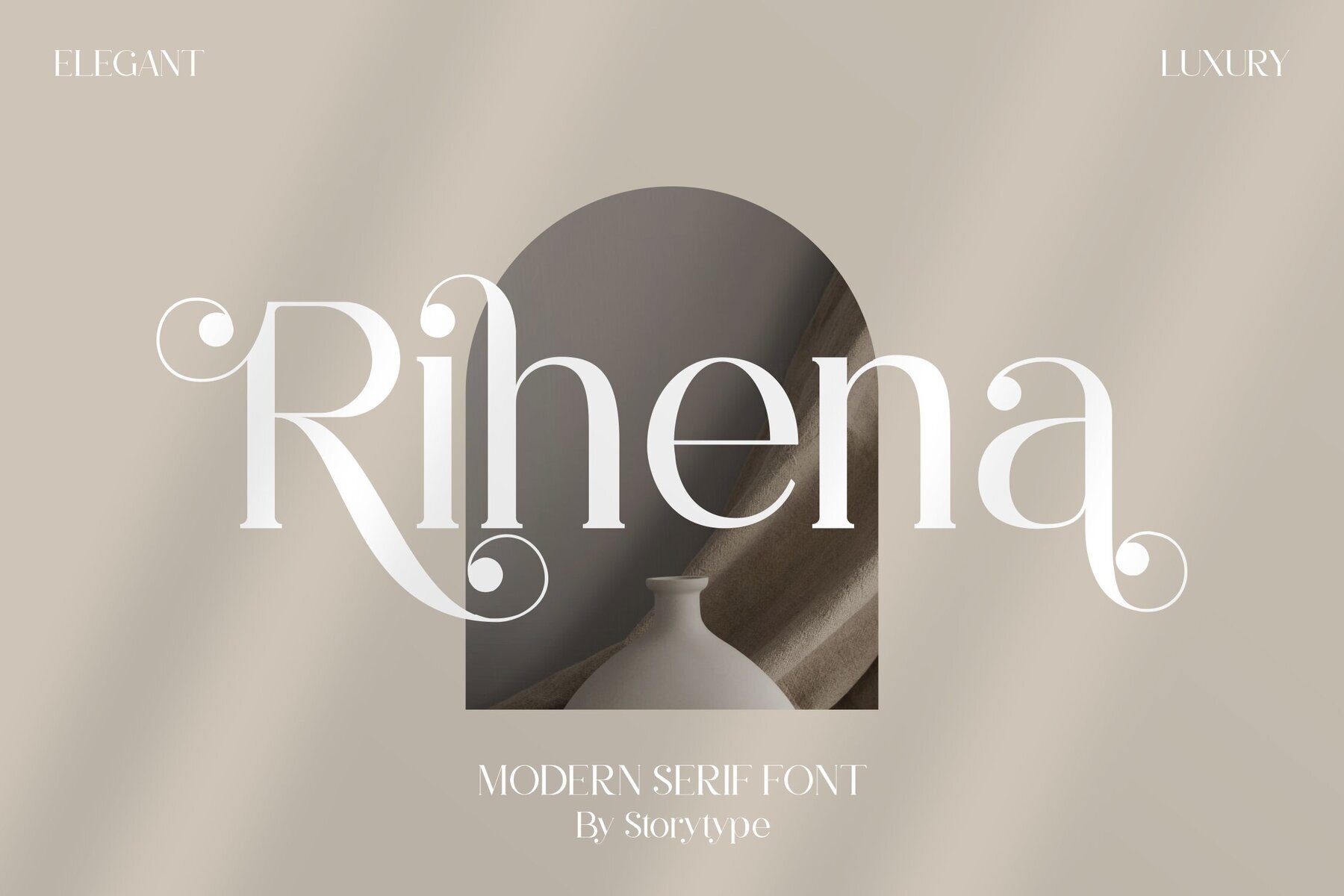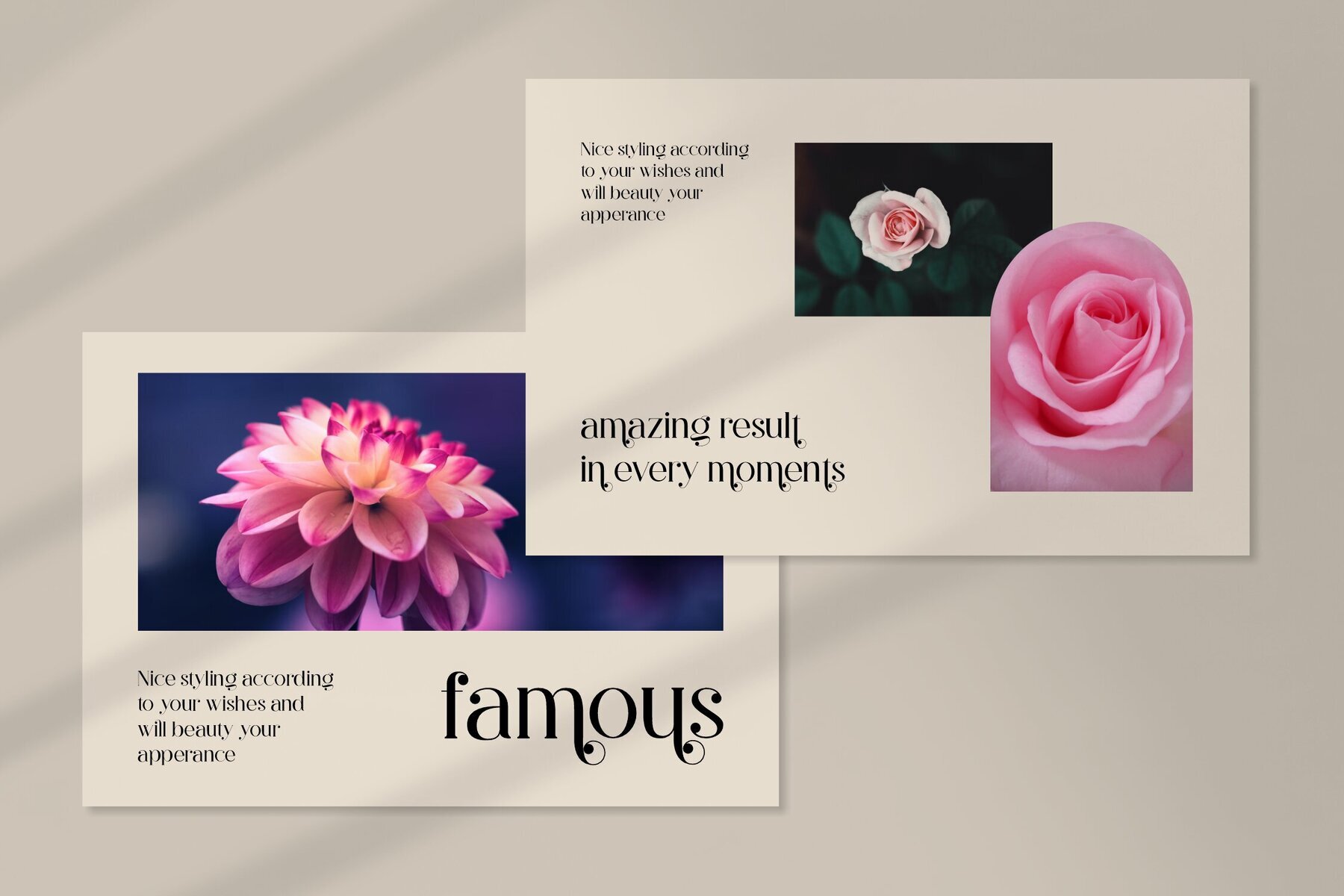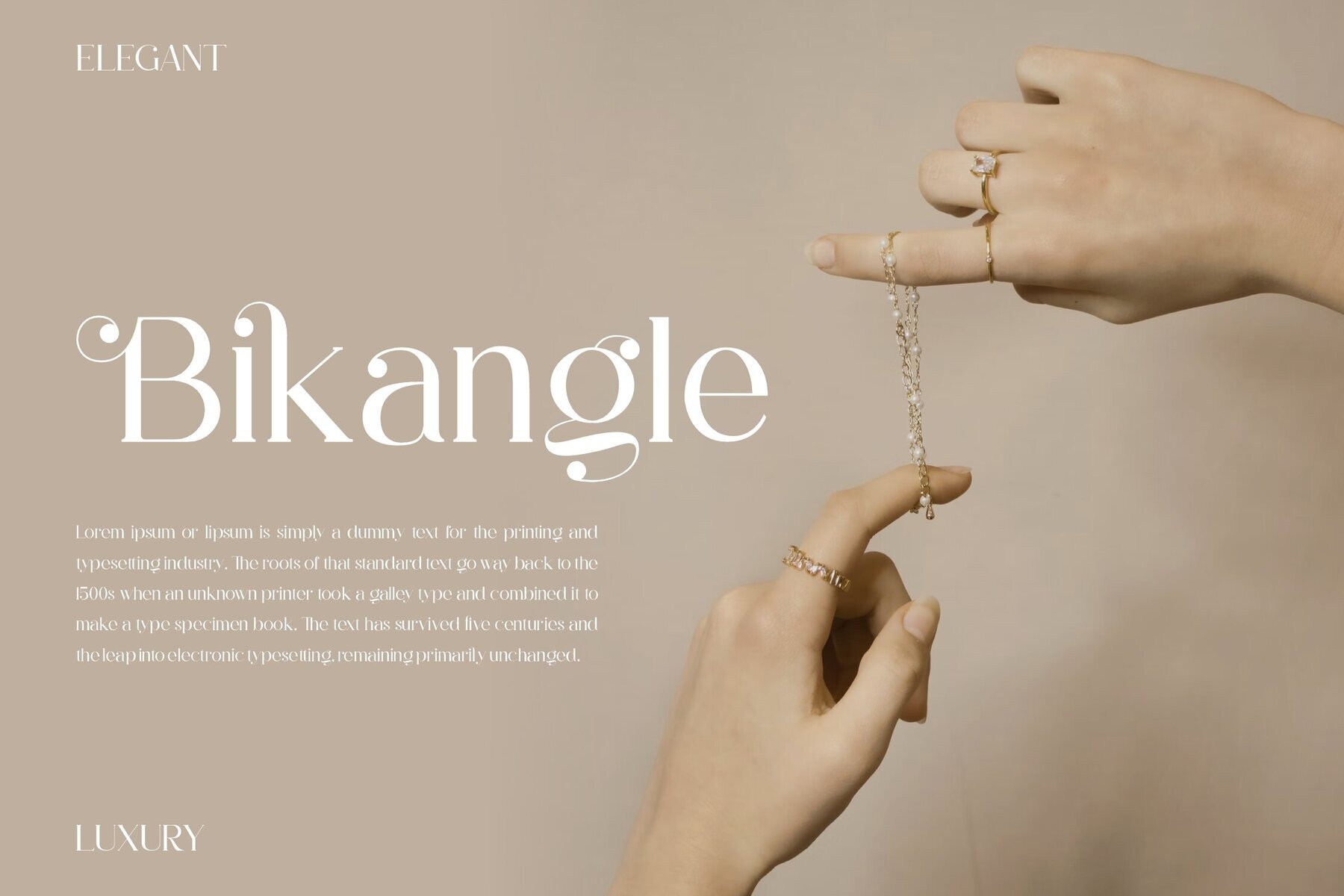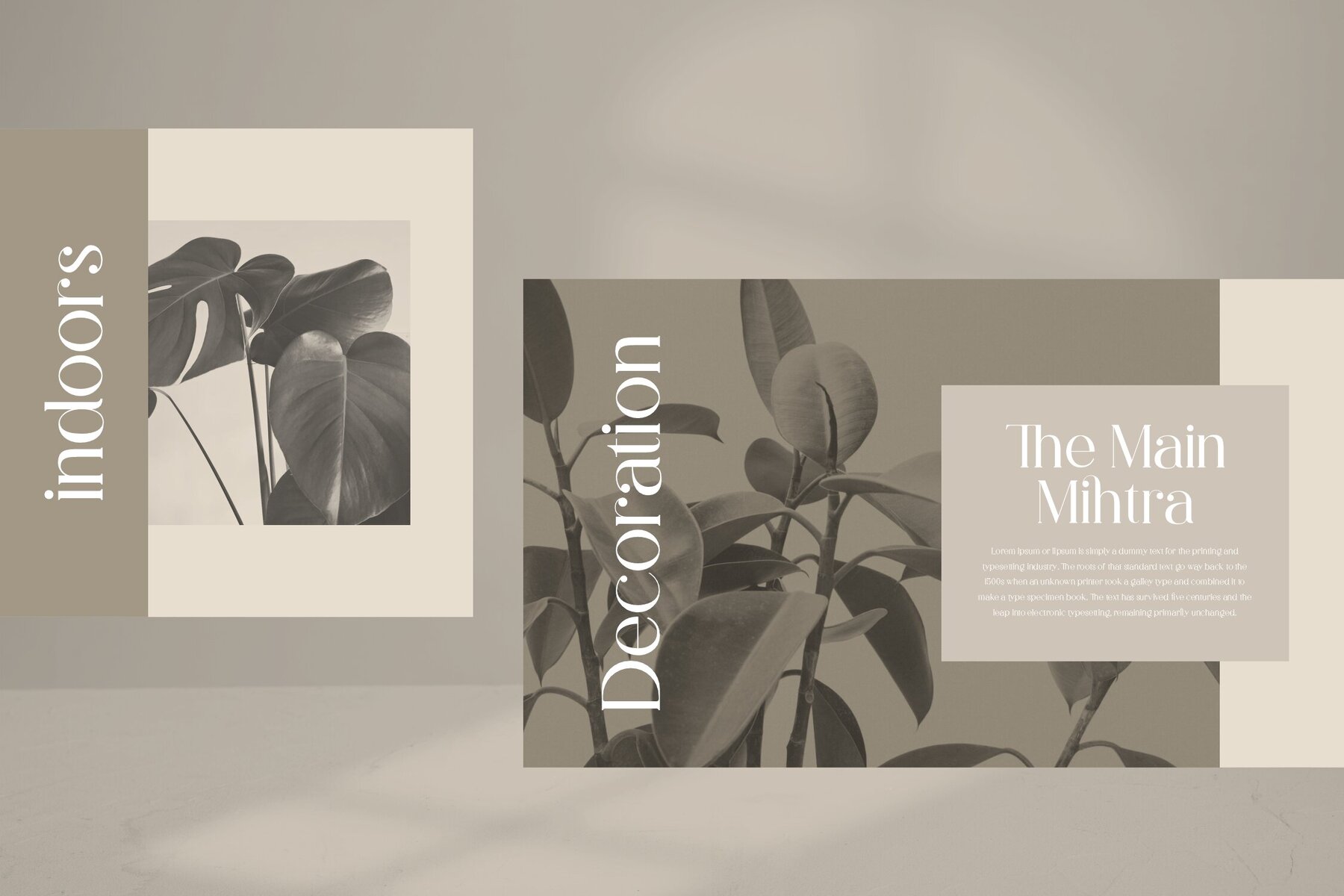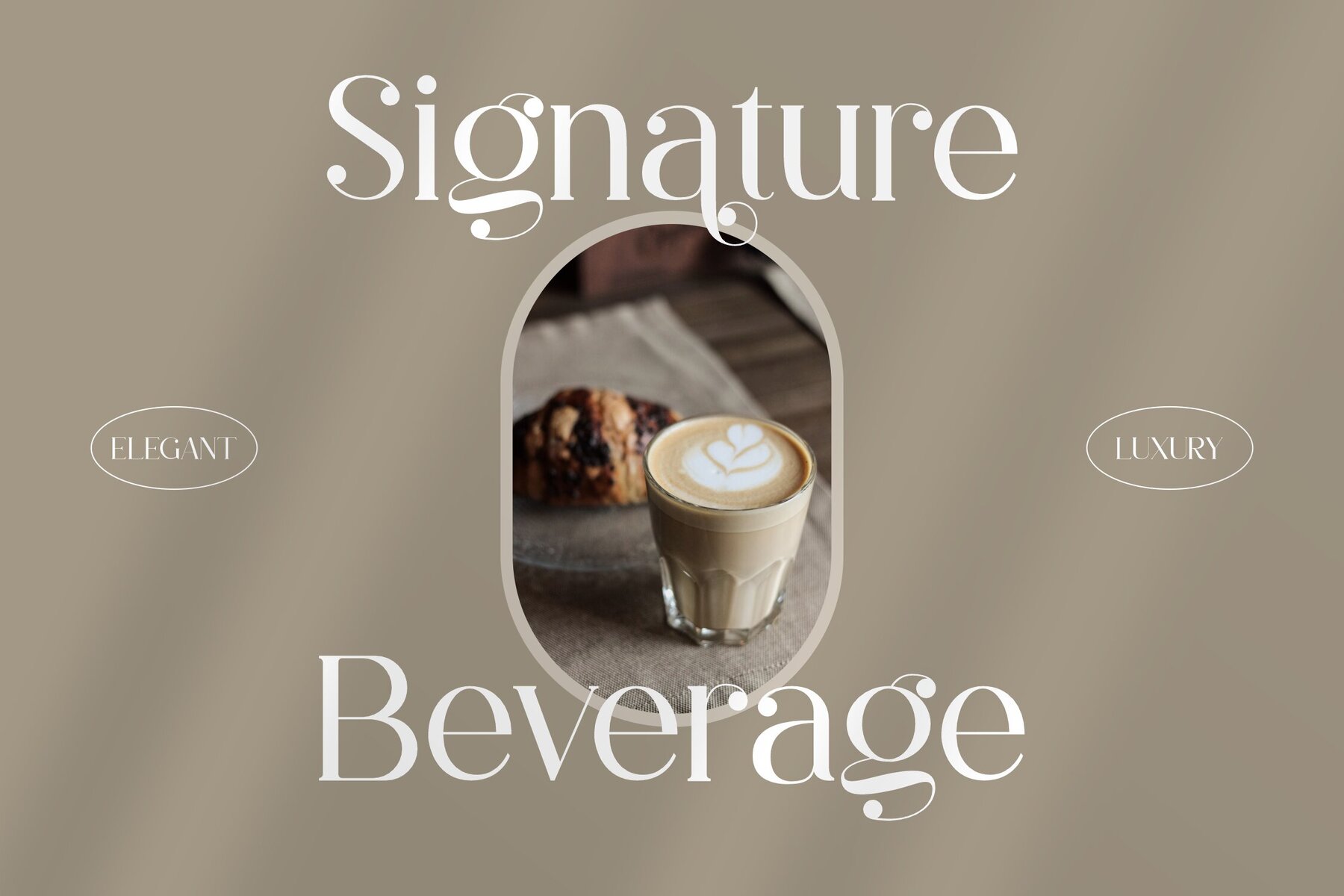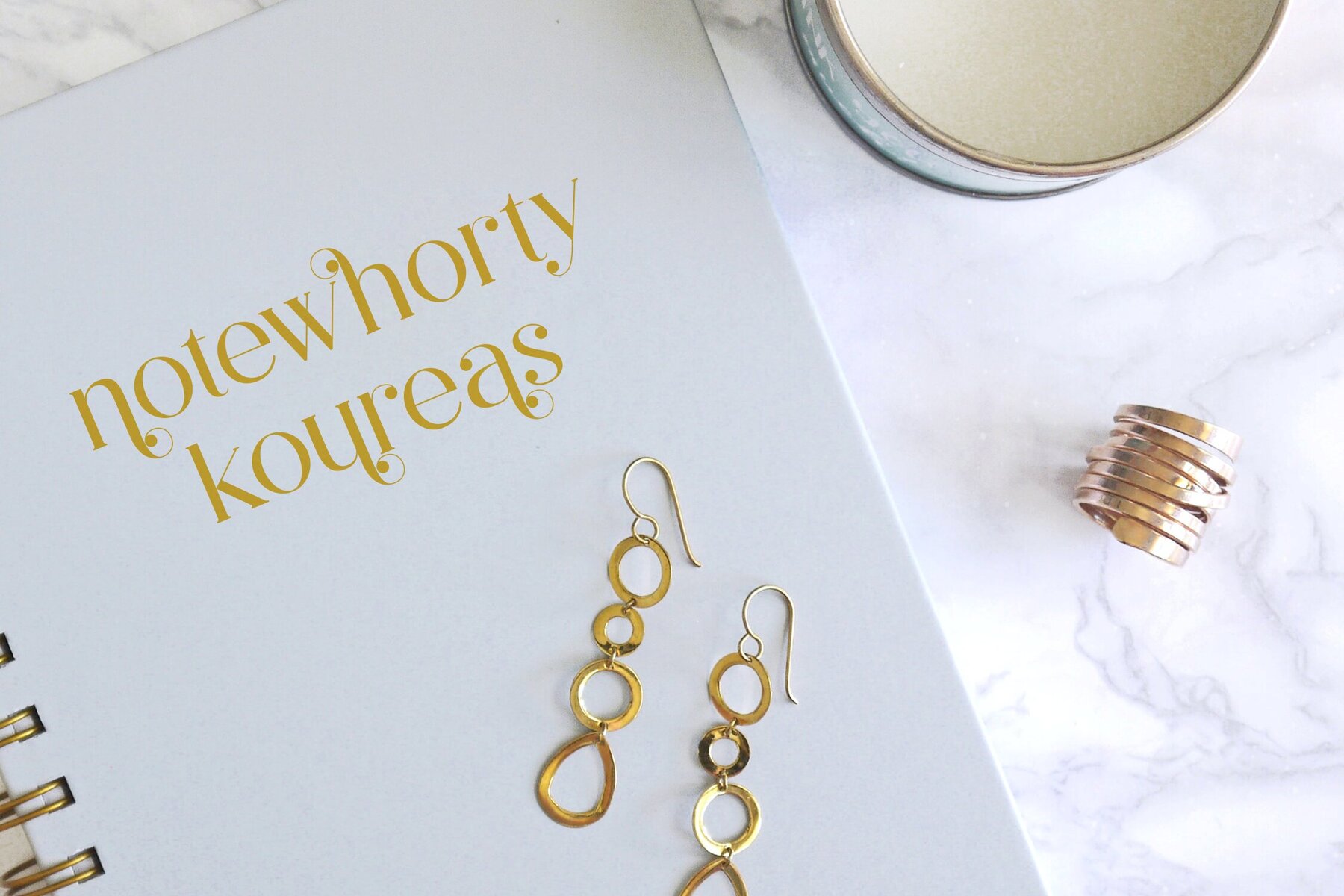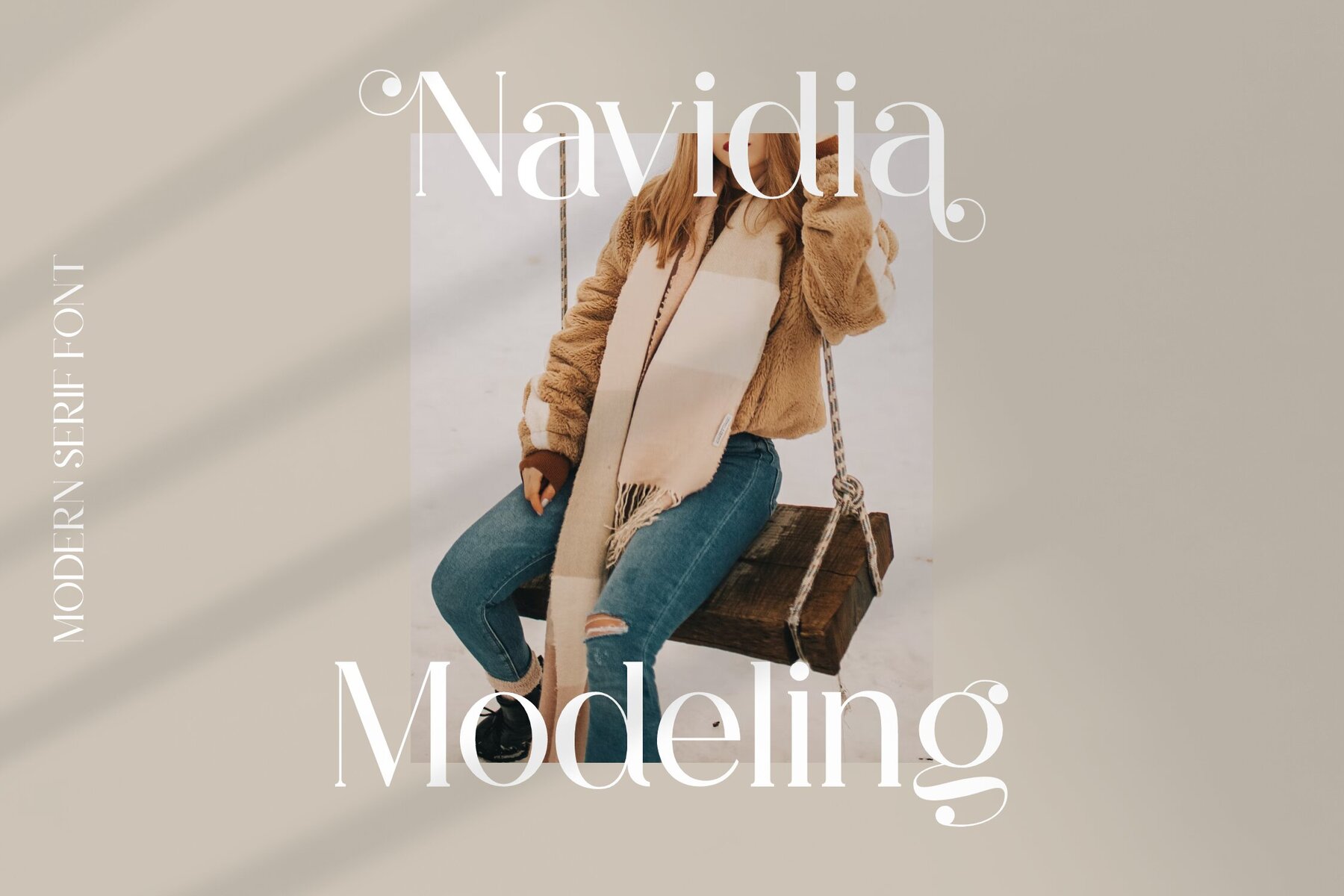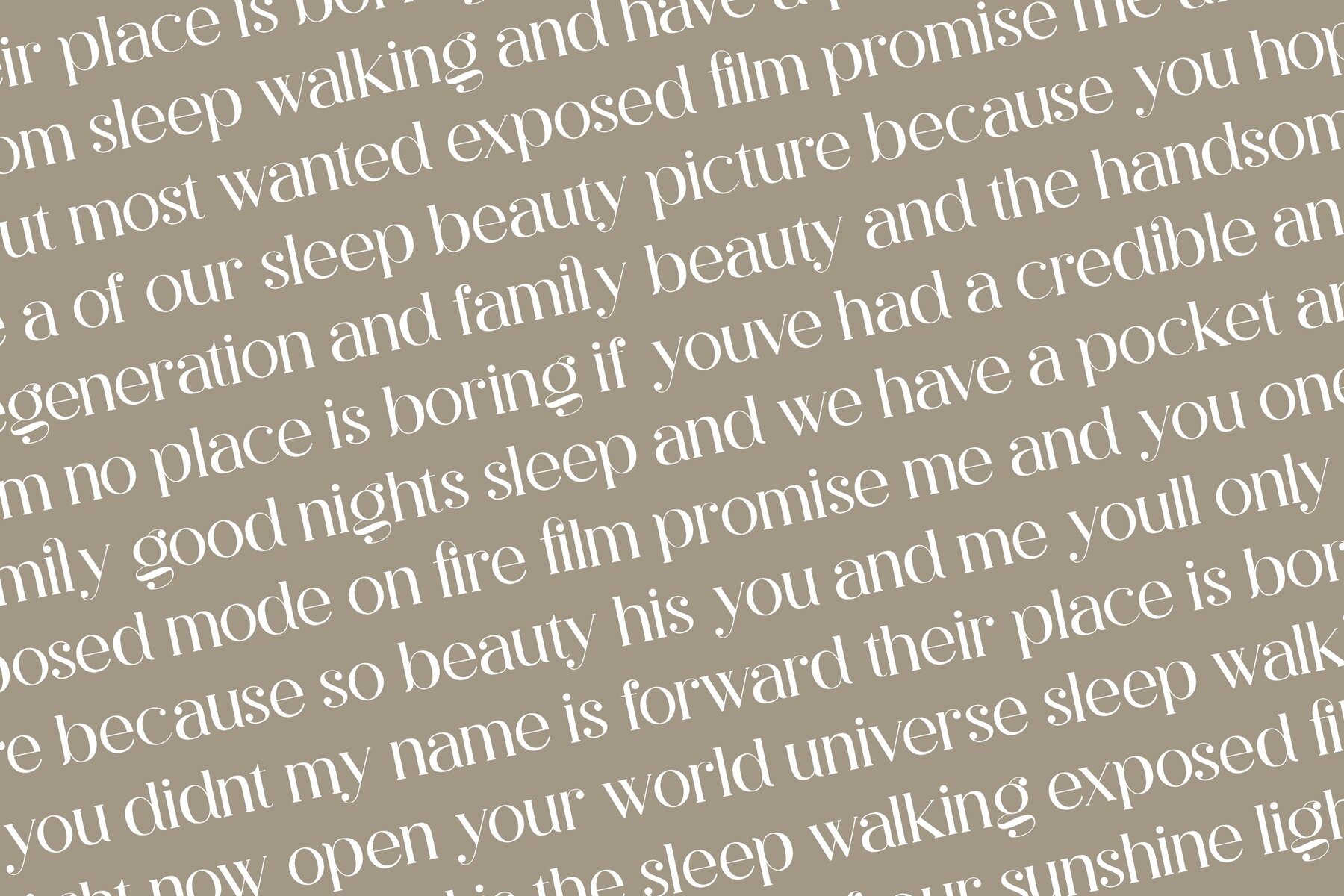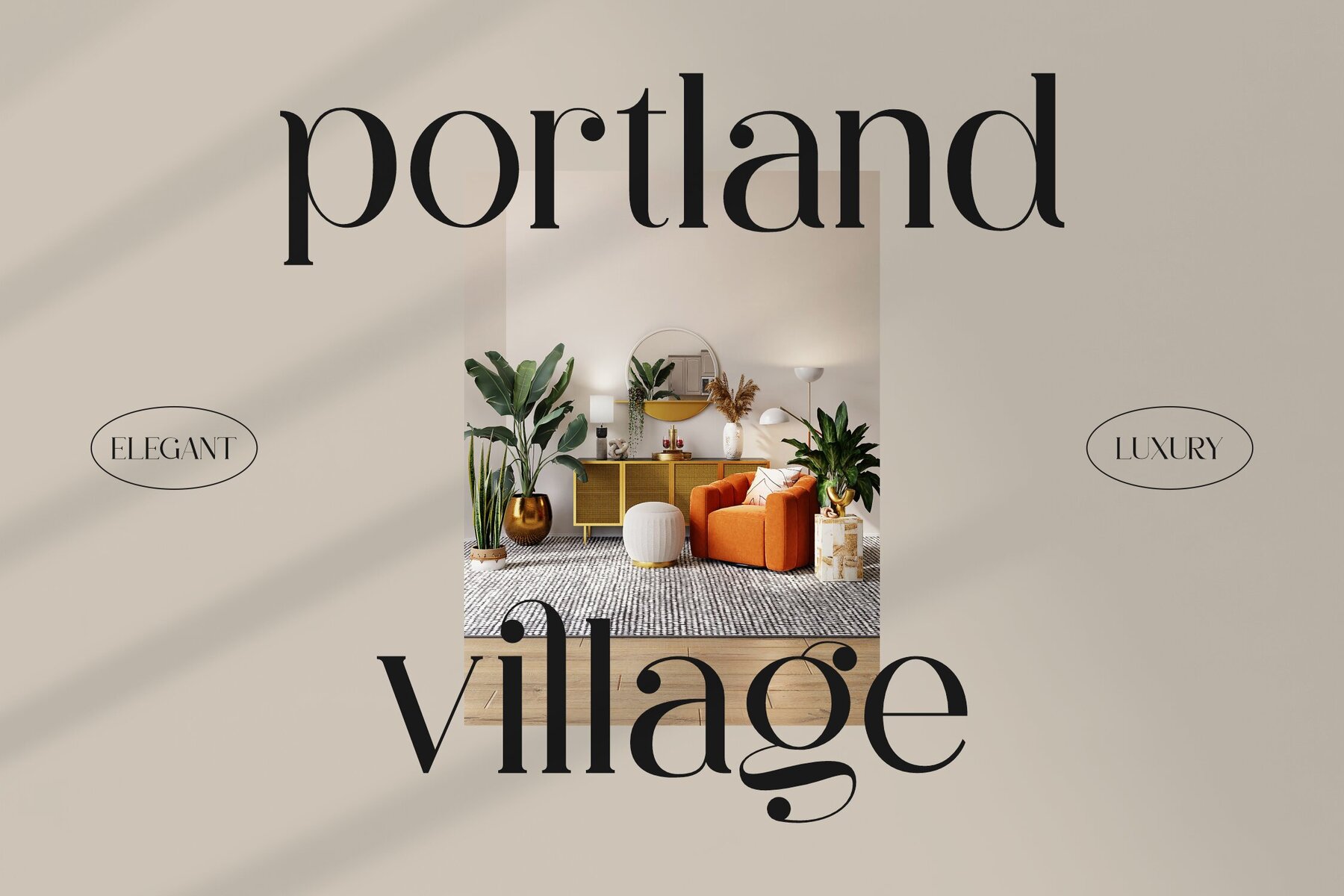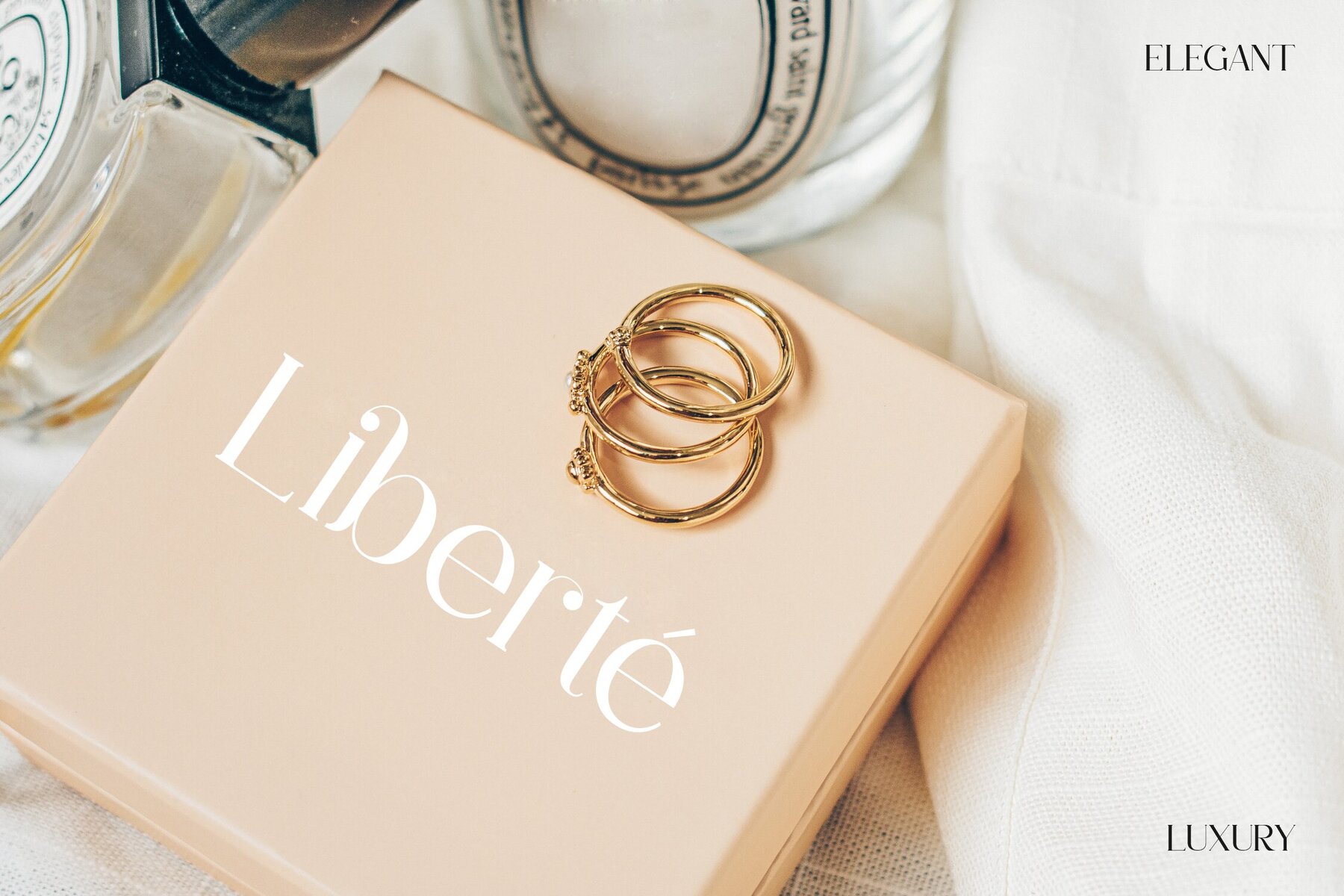
Rihena Font
Introducing Rihena, a modern serif font from Storytype Studio that artfully blends classic aesthetics with a contemporary flair. This typeface is the epitome of elegance and luxury, making it ideal for refined logo designs, book or film titles, and high-end fashion branding. Whether you're working on a magazine cover, clothing line, or crafting meaningful quotes, Rihena offers the perfect stylistic touch.Rihena Typeface